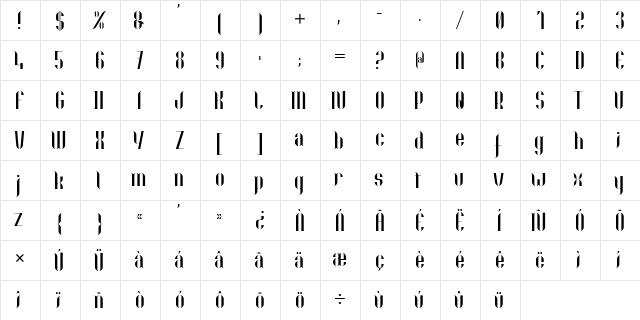
Nolla Regular Font Preview
Nolla Regular
Nolla Regular Font Details
| Foundry | BenoԴ Sj٨olm |
| Designer | BenoԴ Sj٨olm |
Design Context for Nolla Typeface
Nolla is a composed and adaptable typeface that performs quietly and consistently across a wide range of design contexts.